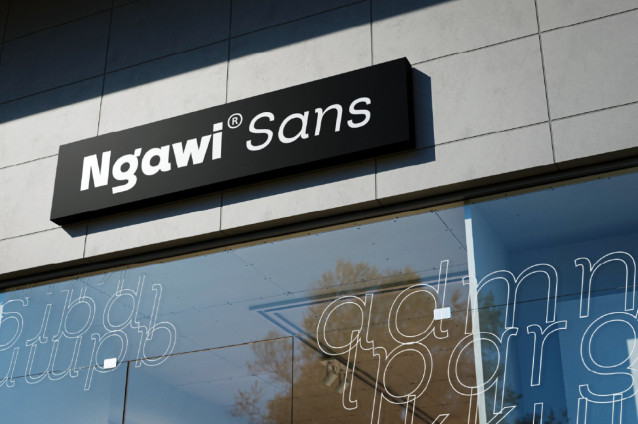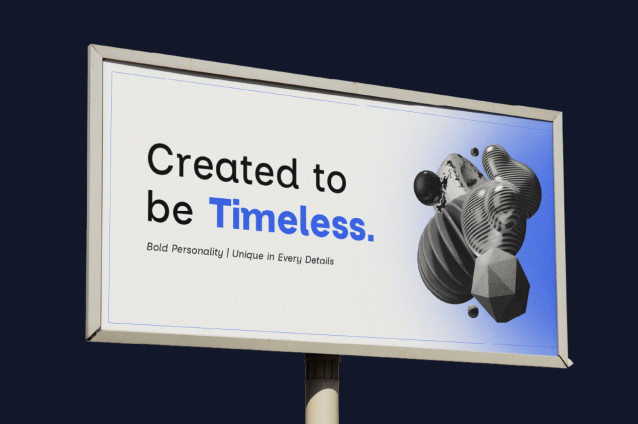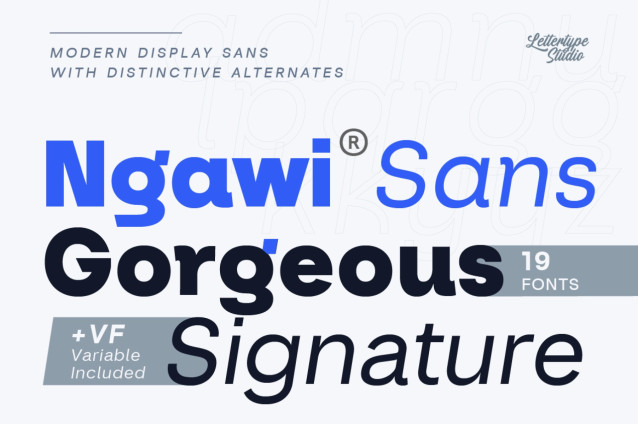
Ngawi Font
Ngawi Sans is a modern display sans family created for designers who want the clarity and versatility of a contemporary sans serif with a more recognizable visual personality. Its carefully balanced proportions and distinctive details allow it to move naturally between refined editorial layouts and bold display applications, making it suitable for identities, campaigns, packaging, signage, fashion, beauty, digital products, and creative direction.
The family contains 9 weights, from Thin through Black, with matching Italics across the complete range. This creates 18 static styles in total, complemented by a Variable Font version for more precise control between weights. Ngawi is also supplied in TTF, OTF formats, with multilingual support covering 270+ languages and a range of OpenType features for additional typographic flexibility.
Ngawi comes in two distinct versions designed to give you different levels of expression. The standard Ngawi uses its distinctive forms as optional alternates, making it the more controlled and versatile choice for everyday typography, while Ngawi Display brings those unique forms forward as the default character set for a stronger and more expressive appearance. Together, they create a flexible type system that lets you decide whether the character should whisper through subtle alternates or lead the design from the start.